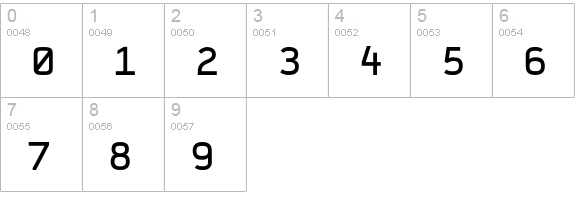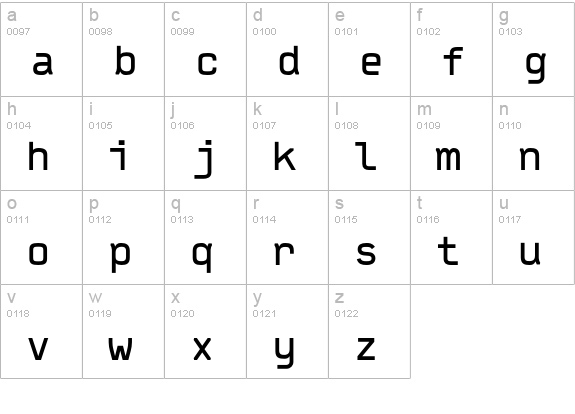
Introducing Typestar-OCR, a font that combines efficiency, clarity, and a touch of nostalgia. Designed with the purpose of recognizing and enhancing the visual appeal of OCR text, this font is your go-to solution for any project that requires accurate optical character recognition. Typestar-OCR is meticulously crafted to ensure optimal legibility, allowing the seamless conversion of scanned documents into editable text while maintaining the integrity of the original content. Its clean and sleek design guarantees that every character is easily distinguishable, even in challenging digitization scenarios. With its charming retro style, Typestar-OCR evokes a sense of vintage typewriters, capturing the essence of a bygone era while embracing the modern demands of the digital age. Its timeless appeal makes it a versatile choice for a wide array of applications, including document scanning, data extraction, and automated text recognition. What's even better is that Typestar-OCR is absolutely free! Yes, you read that right. This exceptional font is freely available to download at FontsMarket.com, where you can access a vast collection of fonts to enhance your creative projects. Say goodbye to expensive font licenses and restrictions; Typestar-OCR offers unrestricted access to its full potential, empowering you to bring your ideas to life without breaking the bank. So why settle for subpar OCR fonts when you can elevate your projects with Typestar-OCR? Download it today from FontsMarket.com and experience the seamless fusion of functionality, style, and affordability. Transform your OCR endeavors into a visually captivating journey with Typestar-OCR - the font that effortlessly bridges the gap between the past and the future.